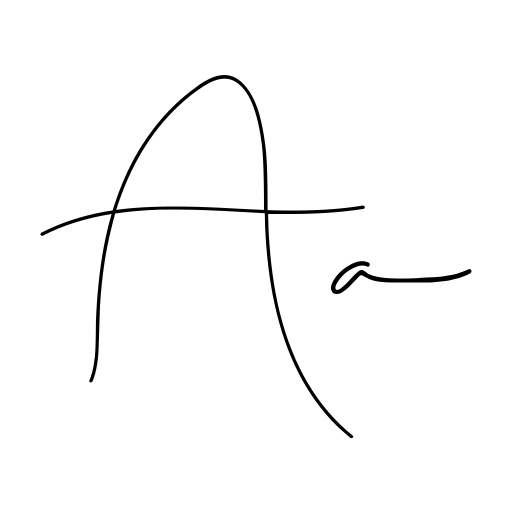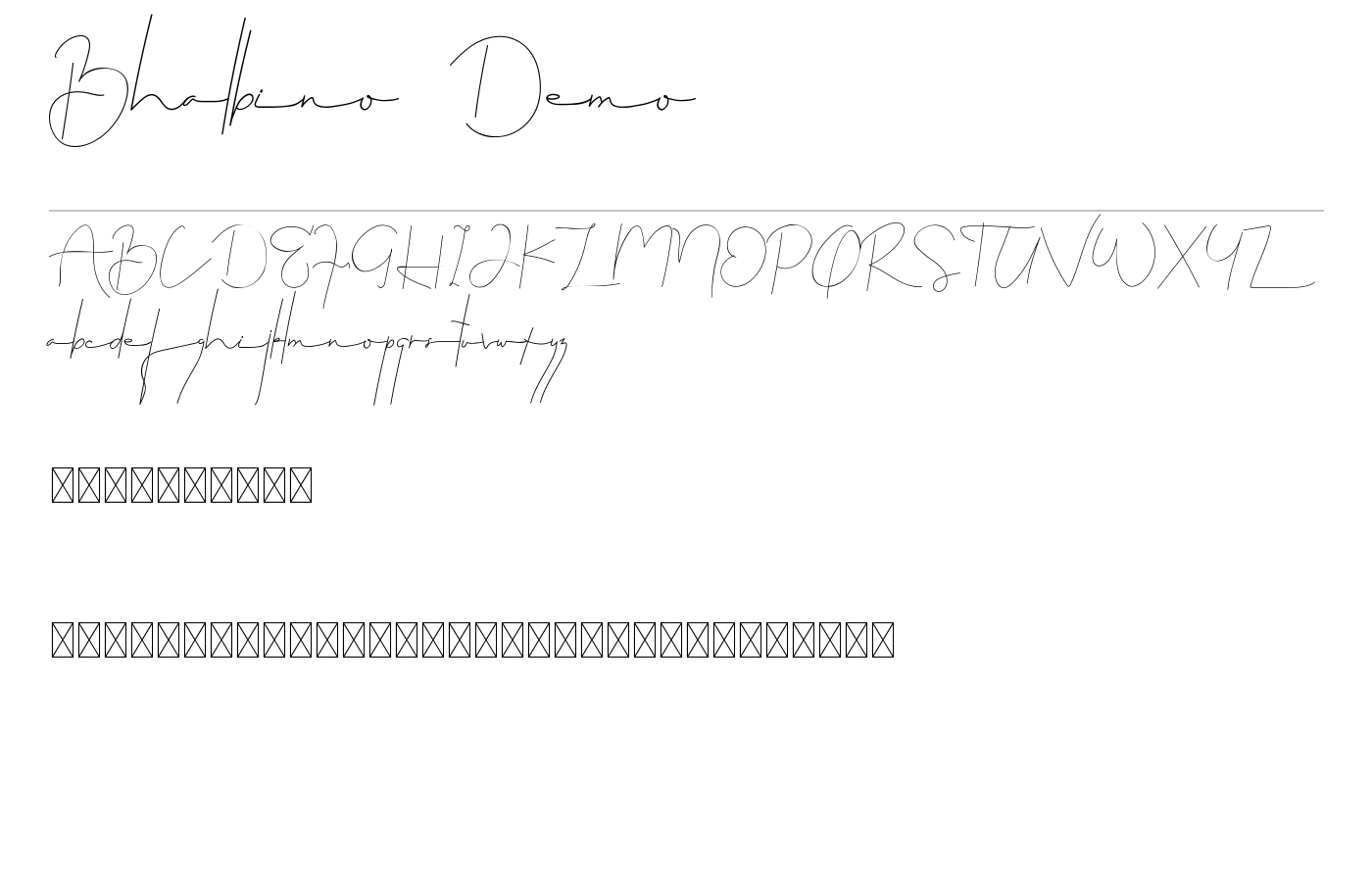
Bhalbino Demo is a delicate, handwritten script font characterized by its ultra-thin strokes and elegant, flowing letterforms that create a personal and artistic feel. Its light weight and airy spacing make it ideal for sophisticated branding, invitations, and creative projects where a refined, graceful touch is desired. This font works best in headlines or display use, adding a stylish and modern handwritten charm.
Bhalbino Demo Font
About Bhalbino Demo Font
| Font family | Bhalbino Demo Font |
| Designer | Saila Nurissalma & Suci Anita |